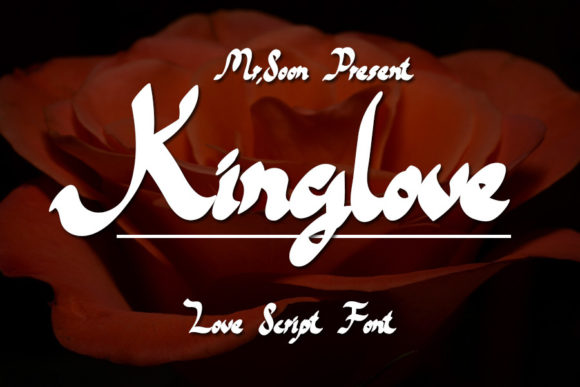
Step into the kingdom of enchanting calligraphy with Kinglove, the script font that exudes elegance and sophistication. Its graceful lines, inspired by the art of cursive, evoke a sense of timeless beauty and charm. Allow Kinglove to elevate your designs, adding a touch of allure to your fashion branding or editorial creations.
Picture the allure of flowing characters, where each letter dances harmoniously across your canvas. With Kinglove, you'll experience the joy of effortless expression, transforming your projects into visual masterpieces. Whether you're a creative entrepreneur showcasing your latest collection or a designer seeking to elevate your editorial designs, Kinglove is your perfect companion.
Immerse yourself in the world of Kinglove, where imagination meets reality. Let its smooth curves and elegant flourishes ignite your creativity. This font is not just a tool; it's an extension of your artistic vision, allowing you to weave tales of elegance and grace into your designs.